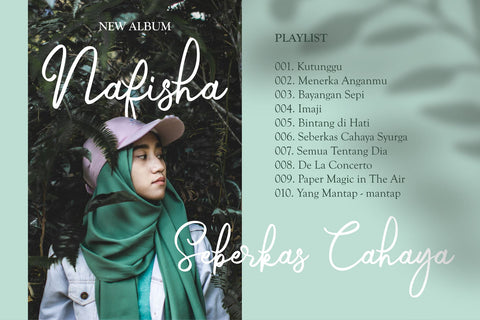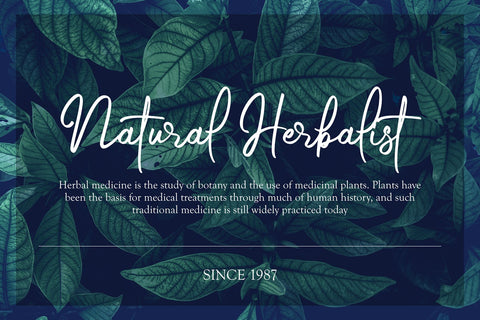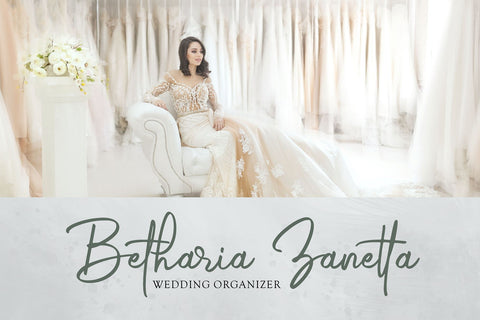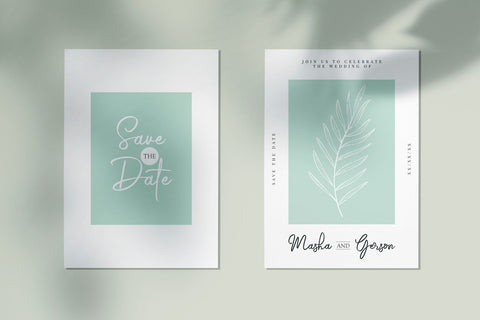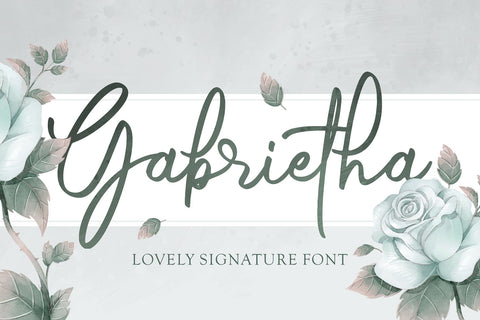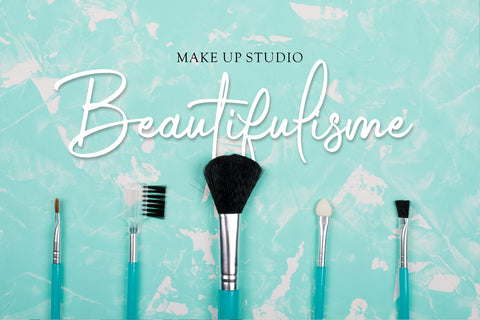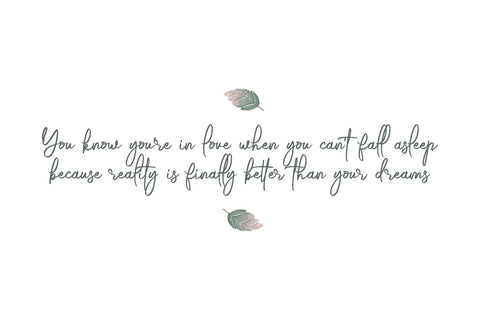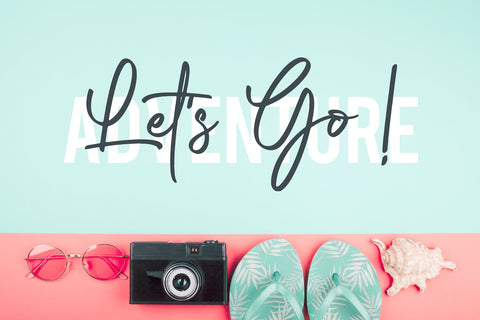
Gabrietha - Lovely Signature Font
Hello, this is Gabrietha
Gabrietha is a lovely signature decorative font with which you can achieve a handwritten lettering feeling. This signature style is perfect for your modern graphic design needs. This font has a really nice flow so you use it in a large text if you want to give it a touch of personality. It can be used on social media content, for branding or packaging.
Also, Gabrietha is the ideal typeface for organic product branding and packaging. Additionally, you can use Gabrietha romantic vibes for wedding invitation designs. Especially if you are looking for a font for Instagram quote posts or any other social media content, this typeface is for you!